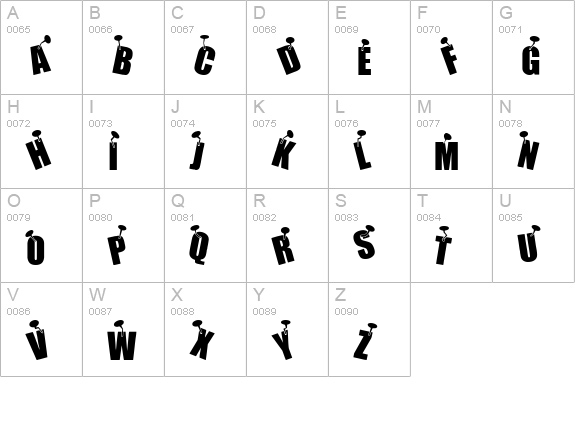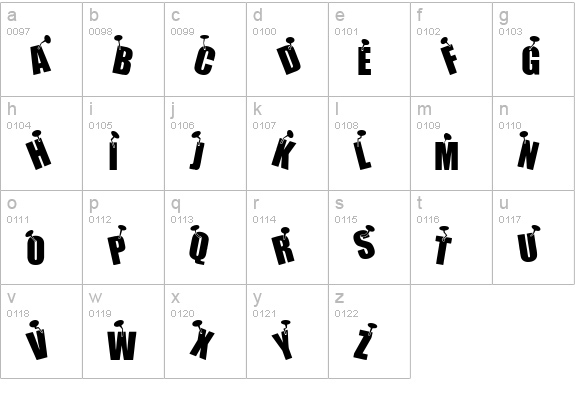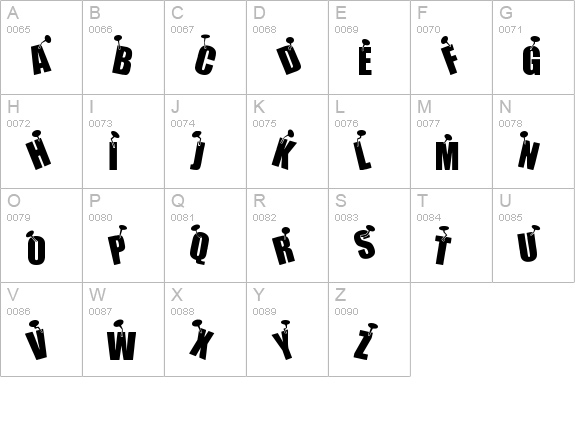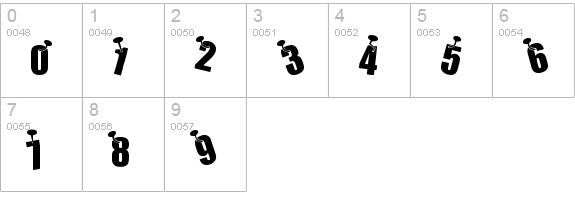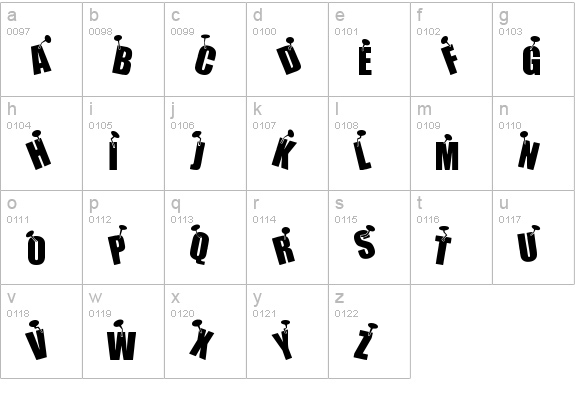
NAILED Font Details
NAILED font is a bold and striking typeface that exudes strength and determination. With its sharp edges and impactful design, NAILED is perfect for making a statement in any project. Whether you're creating a poster, logo, or branding materials, this font is sure to grab attention and leave a lasting impression. Its edgy aesthetic makes it versatile for a wide range of design applications. What's even better is that NAILED font is available for free download at FontsMarket.com. Yes, you heard it right - you can get your hands on this powerful font without spending a dime. So why wait? Add NAILED font to your collection today and let your creativity shine with this bold and impactful typeface.